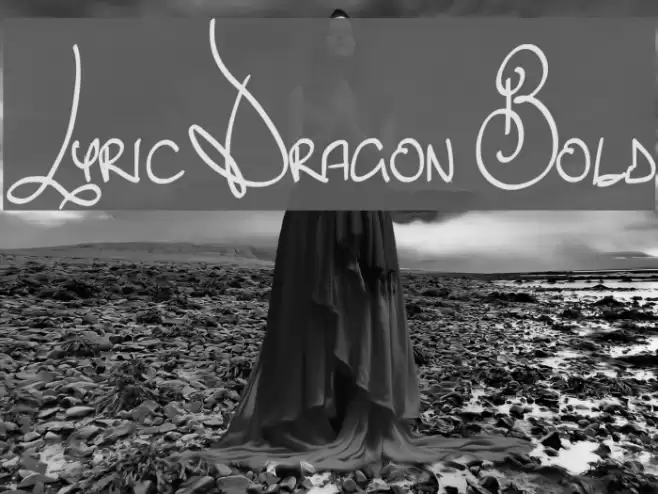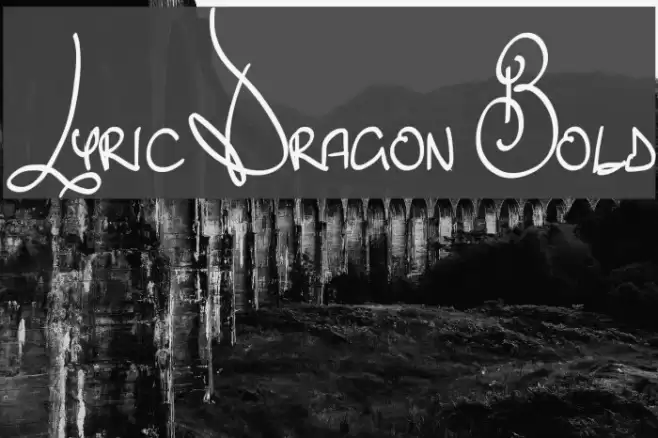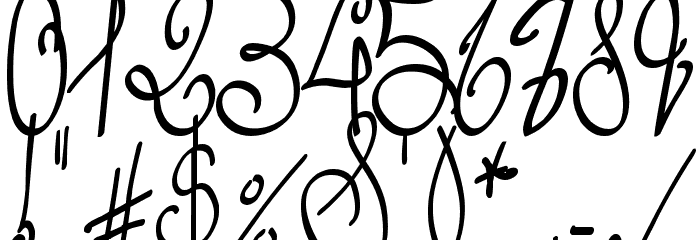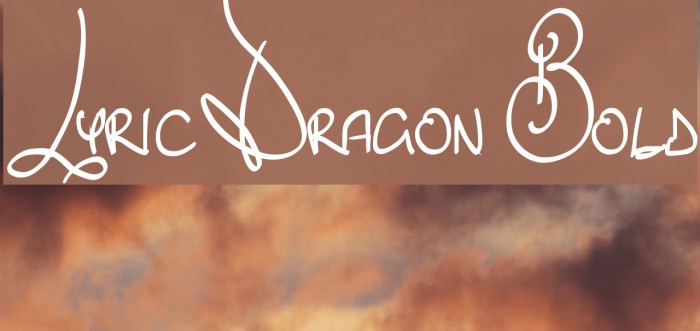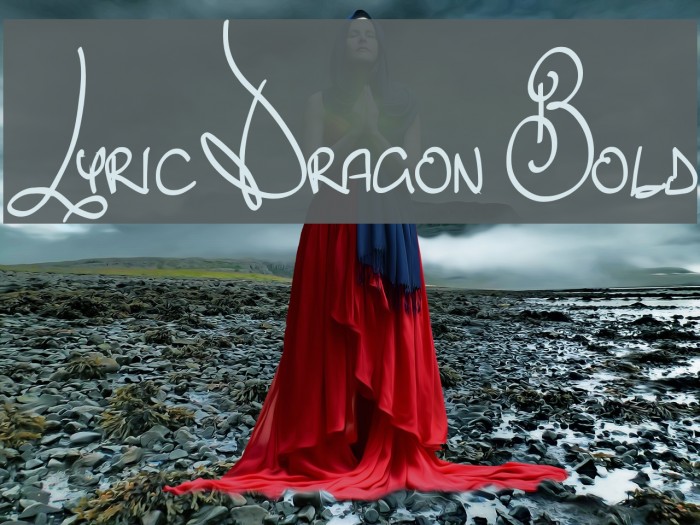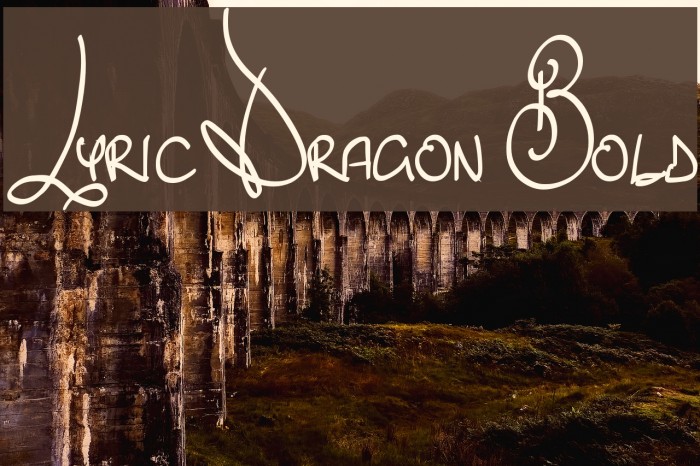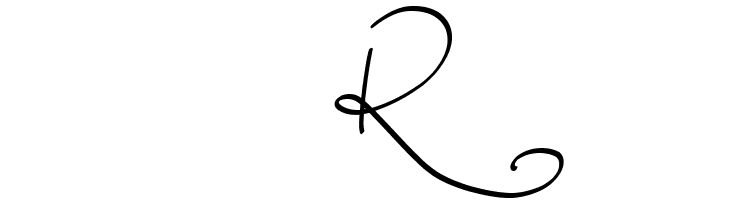
Lyric Dragon Bold Font
Lyric Dragon Bold Description
This font features an intricate and artistic script style with a bold presence. The uppercase letters are highly decorative, with elaborate loops and swirls that give a sense of elegance and flair. The lowercase letters maintain the same artistic quality, ensuring consistency throughout the text. The numerals and special characters are equally stylized, making them suitable for creative and expressive designs. The overall appearance is dynamic and visually striking, ideal for projects that require a touch of sophistication and creativity.
An artistic and bold script font with elaborate loops and swirls from Calligraphic fonts.
- Proposed Projects: Ideal for wedding invitations, greeting cards, branding, and artistic posters.
- Use Case: Logos, Headlines, Artistic projects